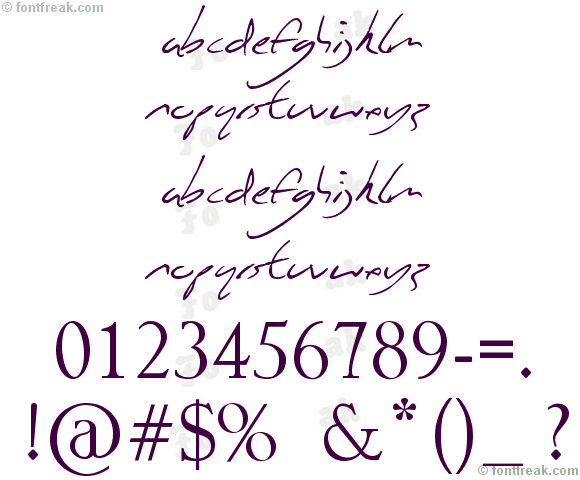
Vineyard Magazines
Vineyard Magazines, created by Jonathan S. Harris in 2012, is a captivating handwritten font that embodies a casual yet refined aesthetic. This font features a unique blend of fluid strokes and varying weights, giving it an organic feel that is both inviting and artistic. The letters exhibit gentle curves and playful slants, creating a sense of motion that enhances its overall charm. The moderate contrast and well-balanced spacing between characters contribute to its legibility, making it suitable for a variety of applications.
This font is particularly well-suited for use in wedding invitations, where its elegant flair can add a personal touch. It also shines in the realm of magazine covers, where its artistic qualities can help capture the attention of readers. Restaurant menus benefit from the font's warm and approachable style, making the dining experience feel more intimate. Additionally, Vineyard Magazines is an excellent choice for branding projects aimed at small businesses, providing a distinctive identity that resonates with customers.
What sets Vineyard Magazines apart is its ability to evoke a sense of nostalgia while remaining modern and versatile. This handwritten font captures the essence of personal expression, making it a standout choice for creatives looking to leave a lasting impression. Whether you're designing a heartfelt invitation or an eye-catching magazine layout, the Vineyard Magazines font free download is a perfect addition to your typographic toolkit.